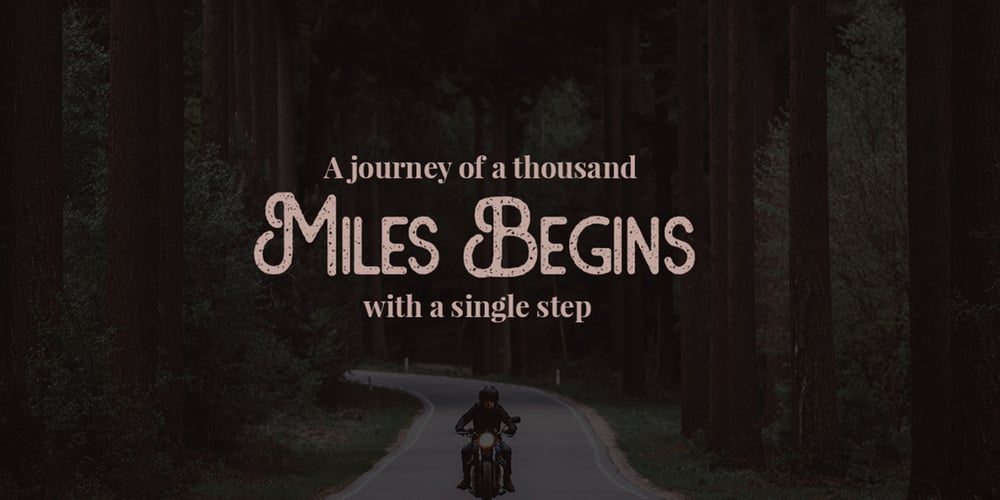
The Monokill Font Family was designed by Eldertype Studio and published by Eldertype Studio. The Monokill contains 2 styles and family package options. The Monokill is modern vintage display typefaces, This font has 2 styles, namely clean – textured which will make the display look good. Choose between varying texture strength for your desired effect. Already PUA Encoded and I think this font is perfect for Logos, Advertising, Apparel Design, Labels, Signage, Etc.